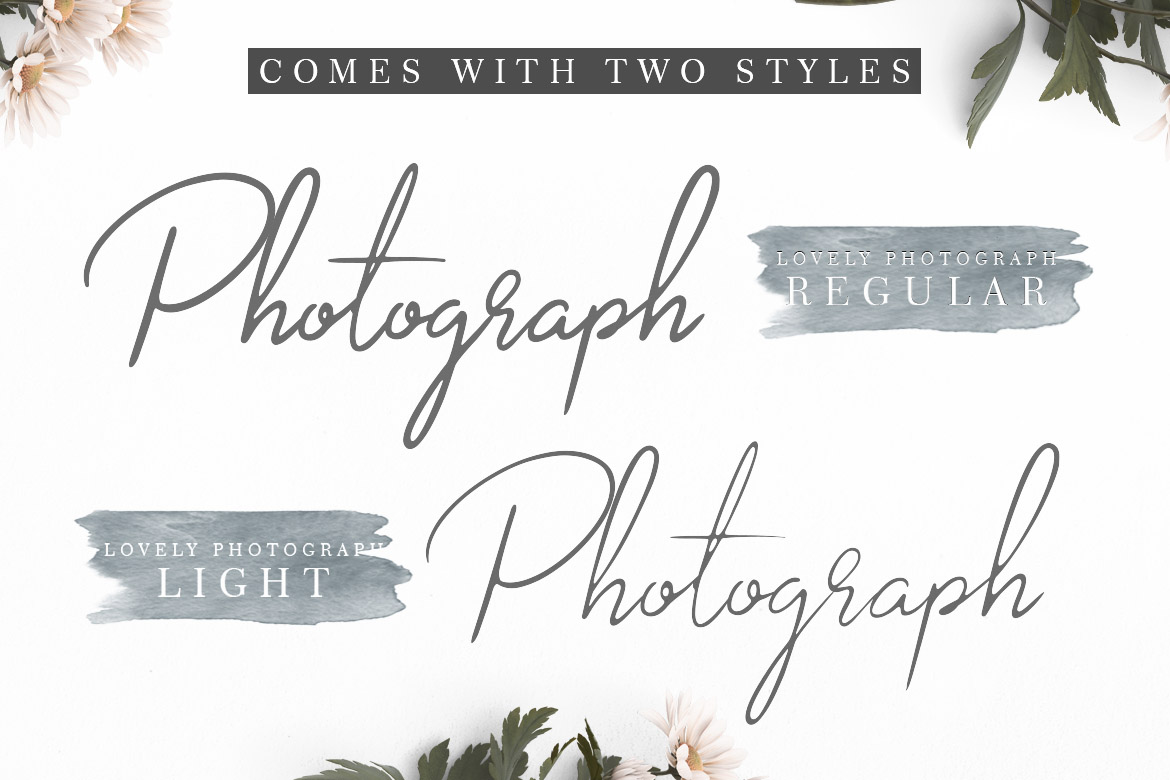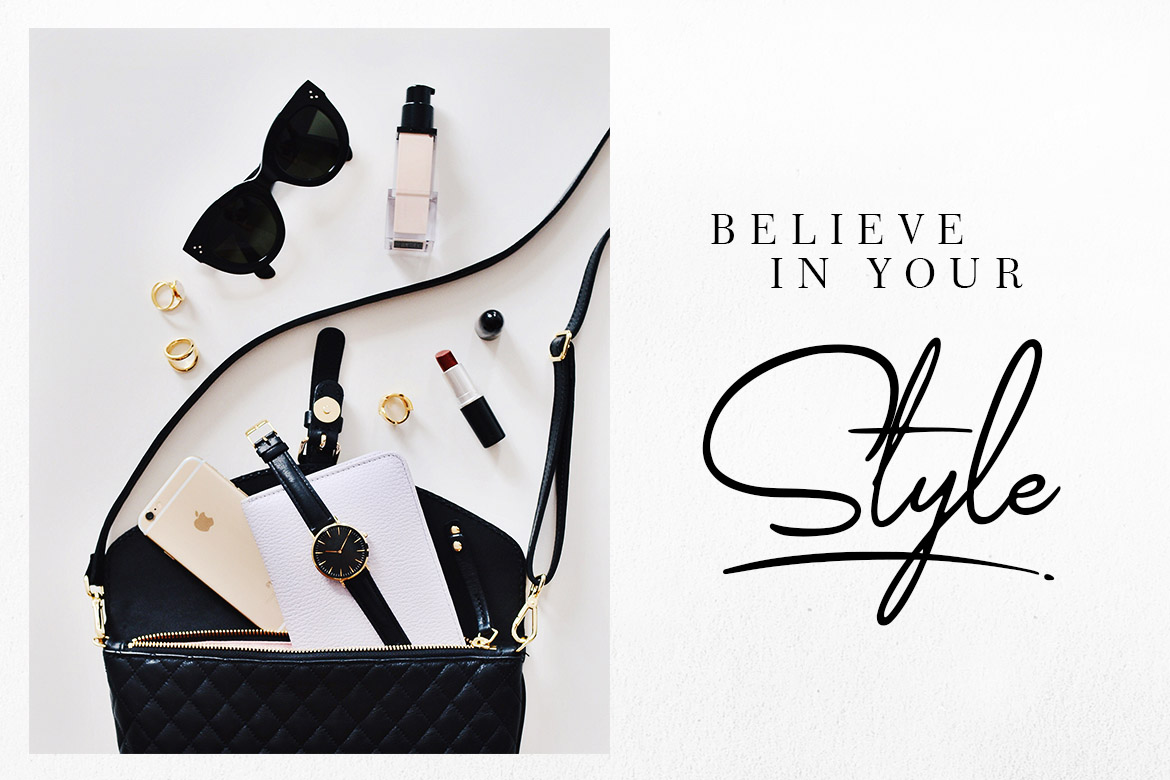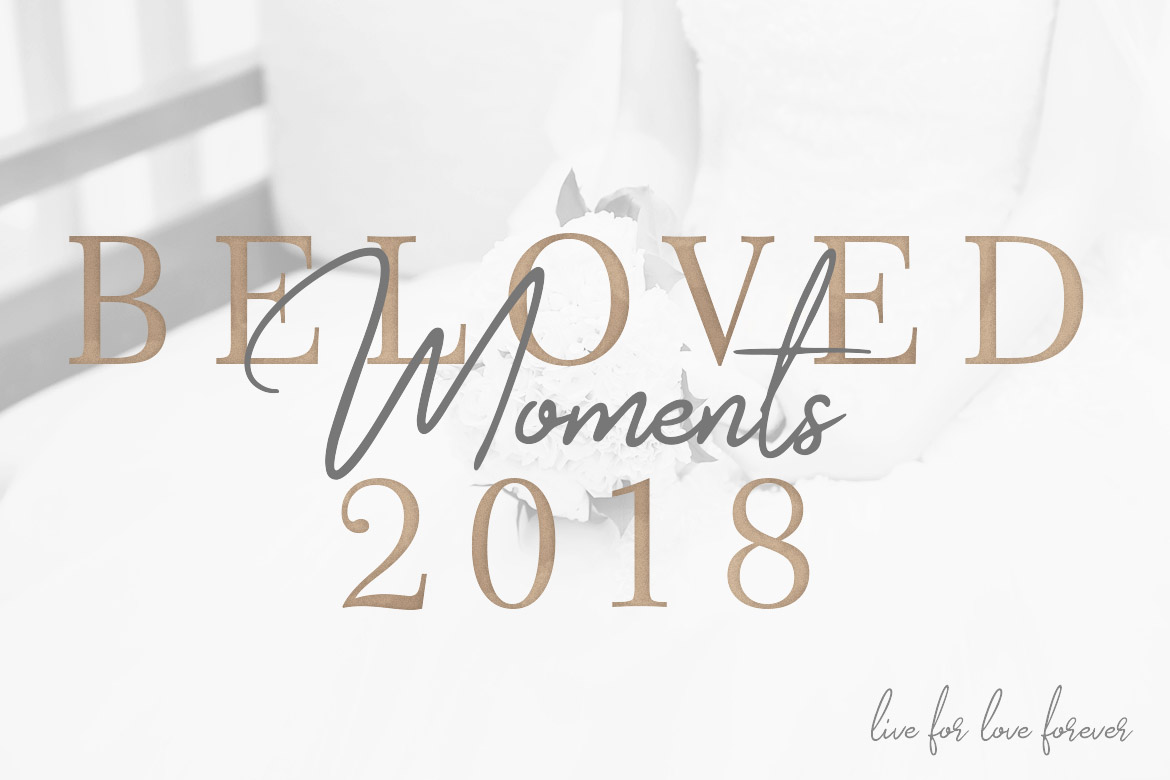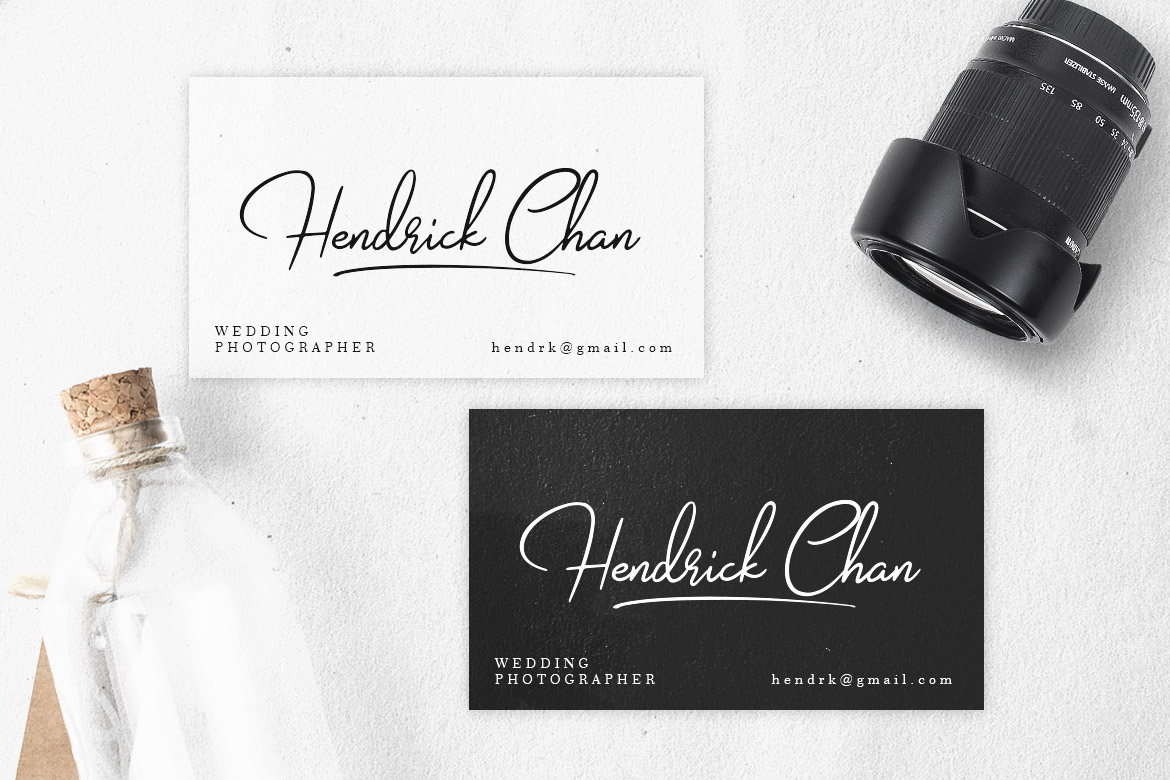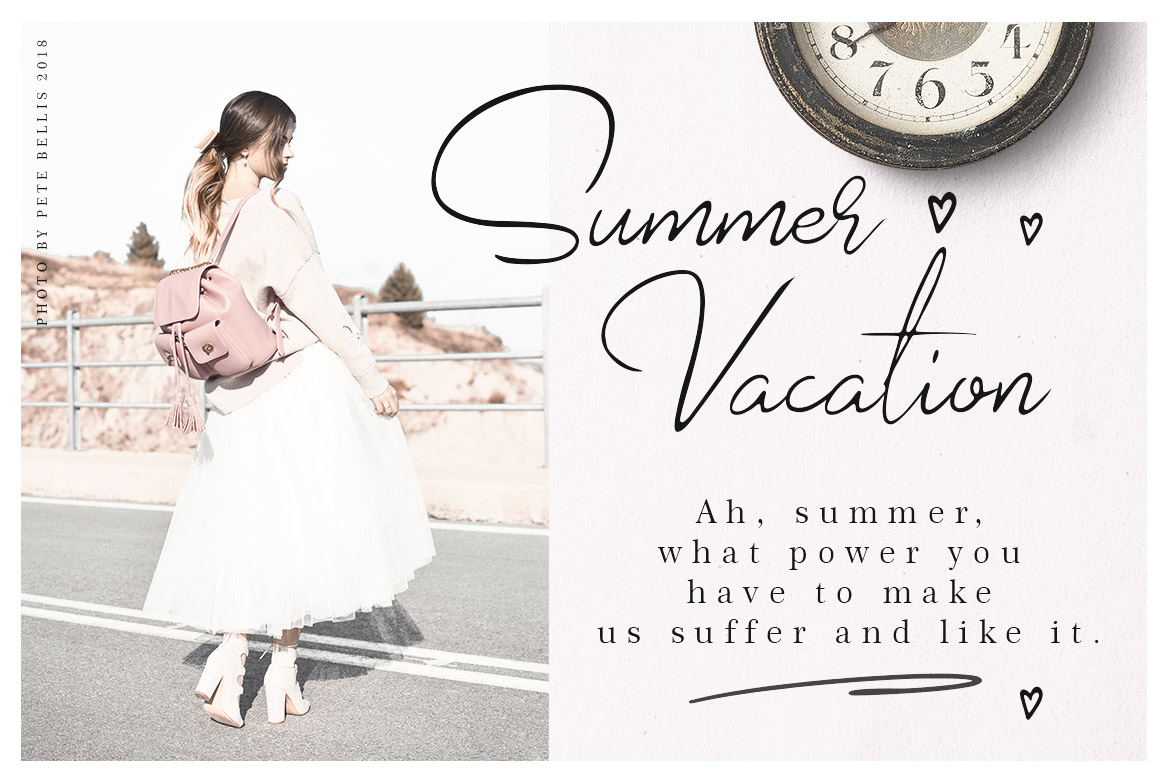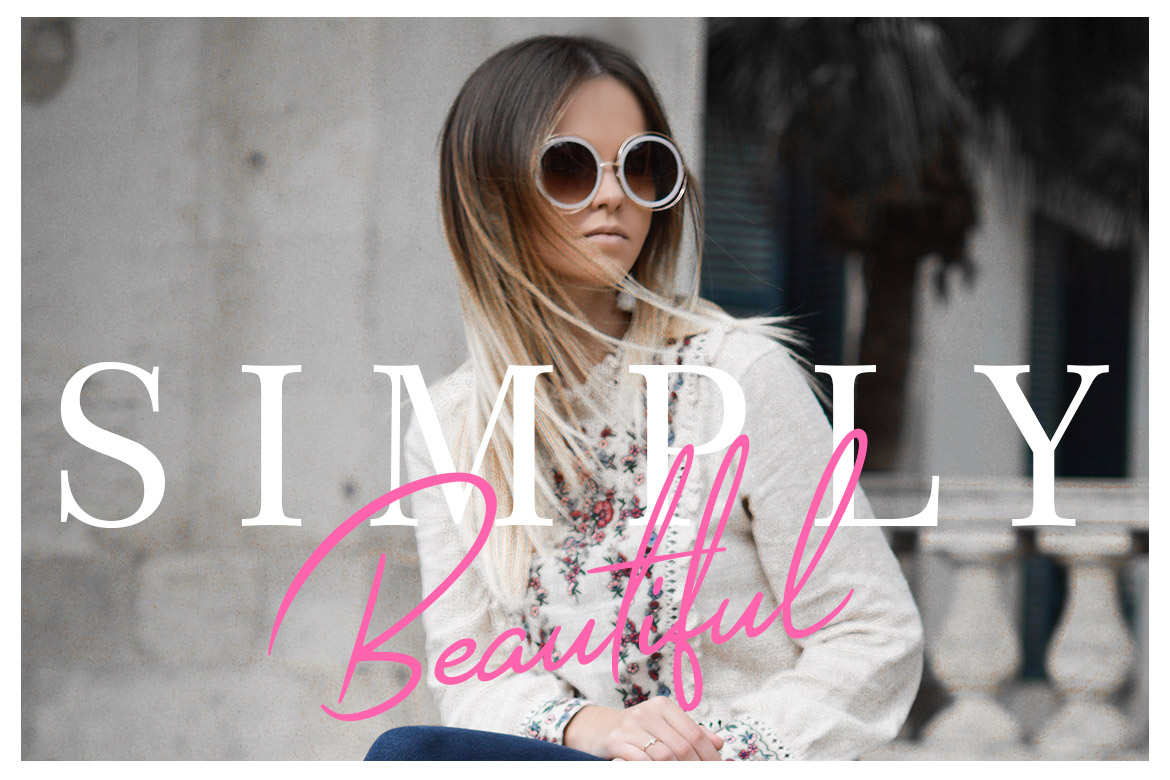
Introduction to Lovely Photograph Font Font
Fonts play a crucial role in design, and the Lovely Photograph Font font is a typeface that brings both character and versatility to any project. Whether you’re working on a branding project, a website, or a print design, the Lovely Photograph Font font offers a unique style that can elevate your work.
| 📌 Font Name | Lovely Photograph Font |
| 👤 Author | Lettersiro Co. |
Lovely Photograph is a fresh, modern hand-lettered font.
Created with attention to detail, this stunning font comes in 2 styles: Regular & Light The Lovely Photograph font can be used for many purposes, including magazine headlines, signature designs, logos, business & apparel.
Key Features of Lovely Photograph Font Font
Why Choose Lovely Photograph Font Font?
The Lovely Photograph Font font is more than just a typeface – it’s a design tool that helps you communicate your message with style and clarity. Its unique character set and versatile design make it suitable for a wide range of applications, from elegant invitations to bold headlines.
With its carefully crafted letterforms and balanced proportions, the Lovely Photograph Font font ensures readability and visual appeal across all mediums.
What makes Lovely Photograph Font font special?
The Lovely Photograph Font font stands out with its unique design, exceptional readability, and versatility across various design applications.